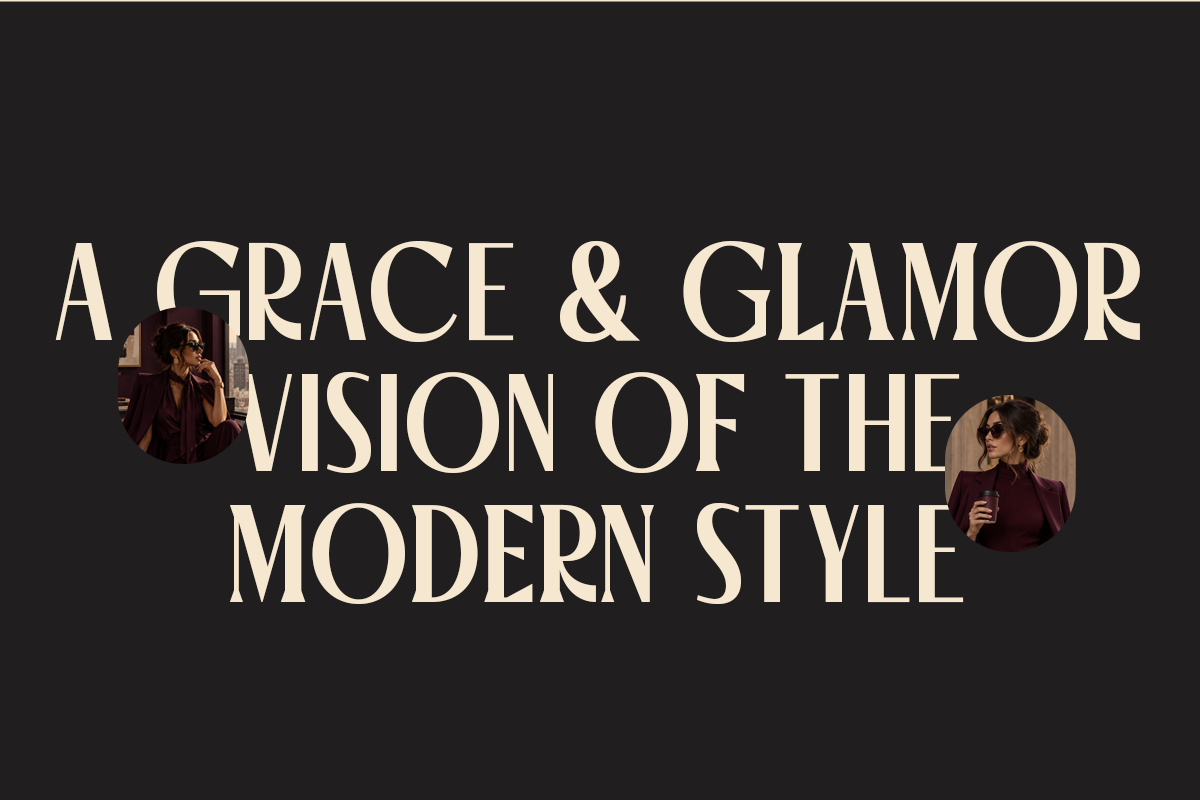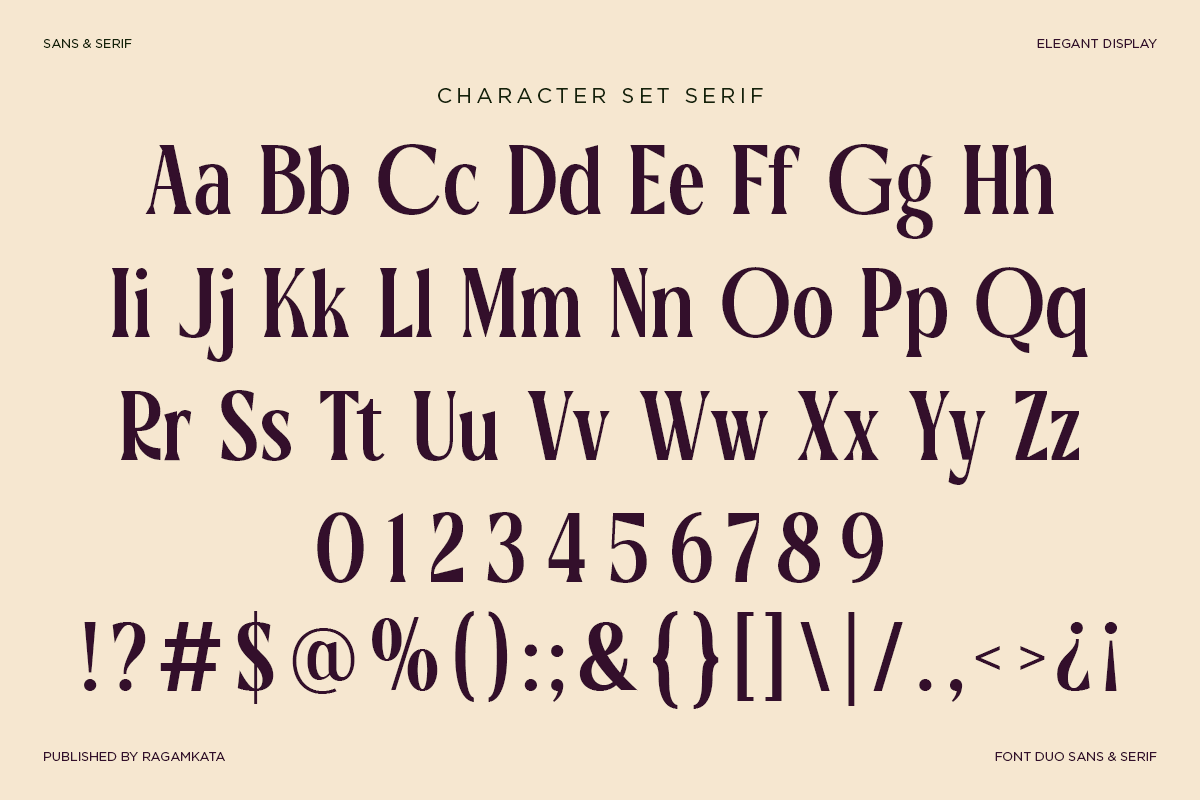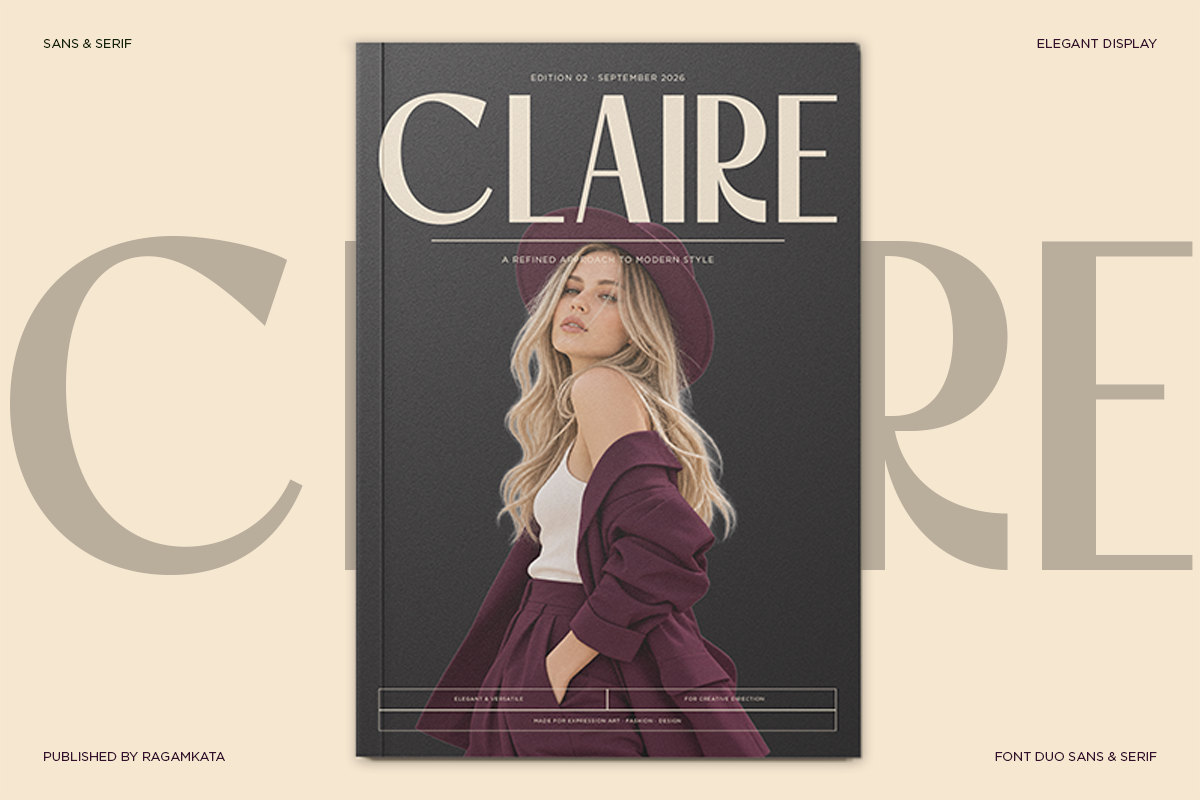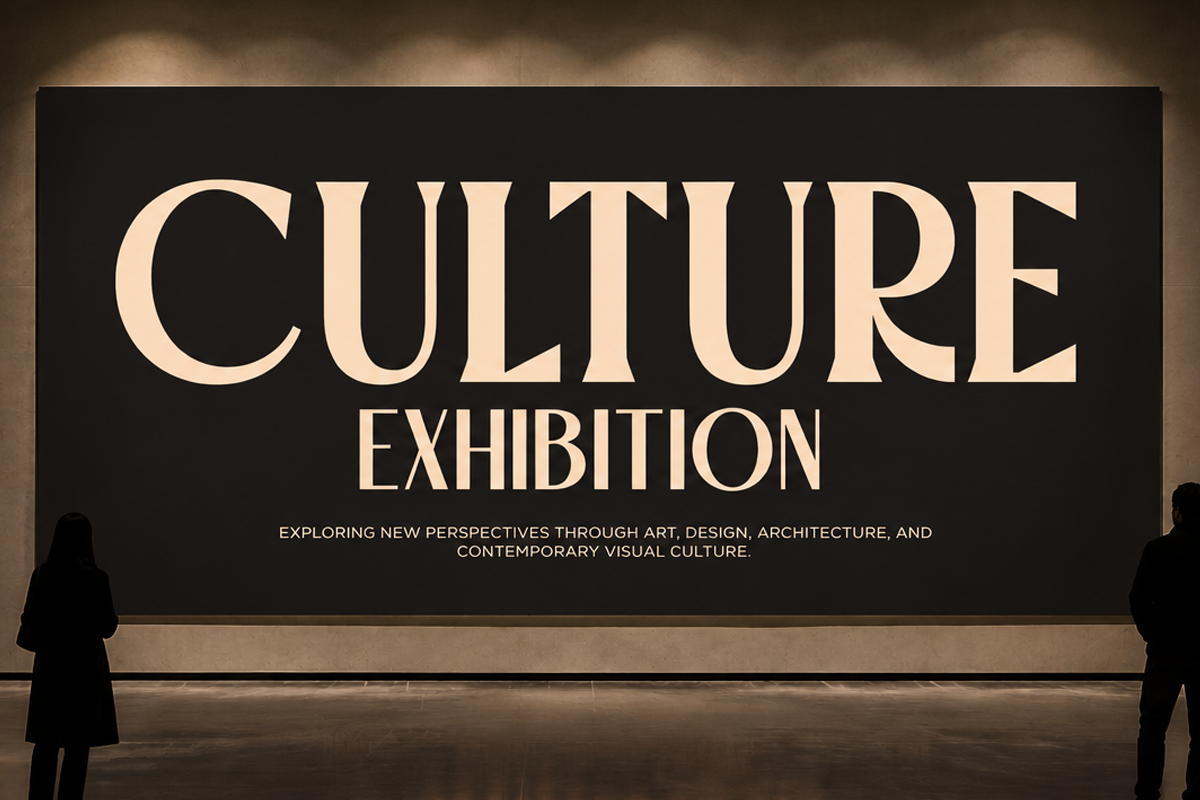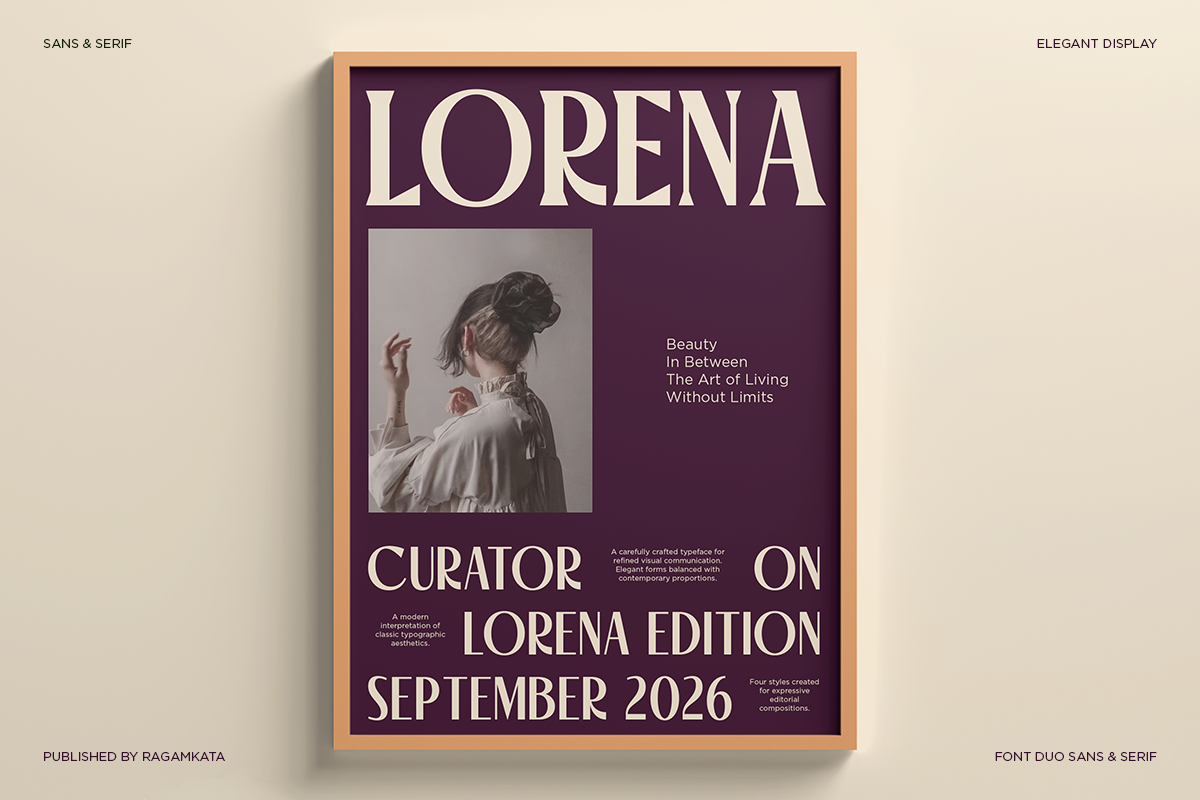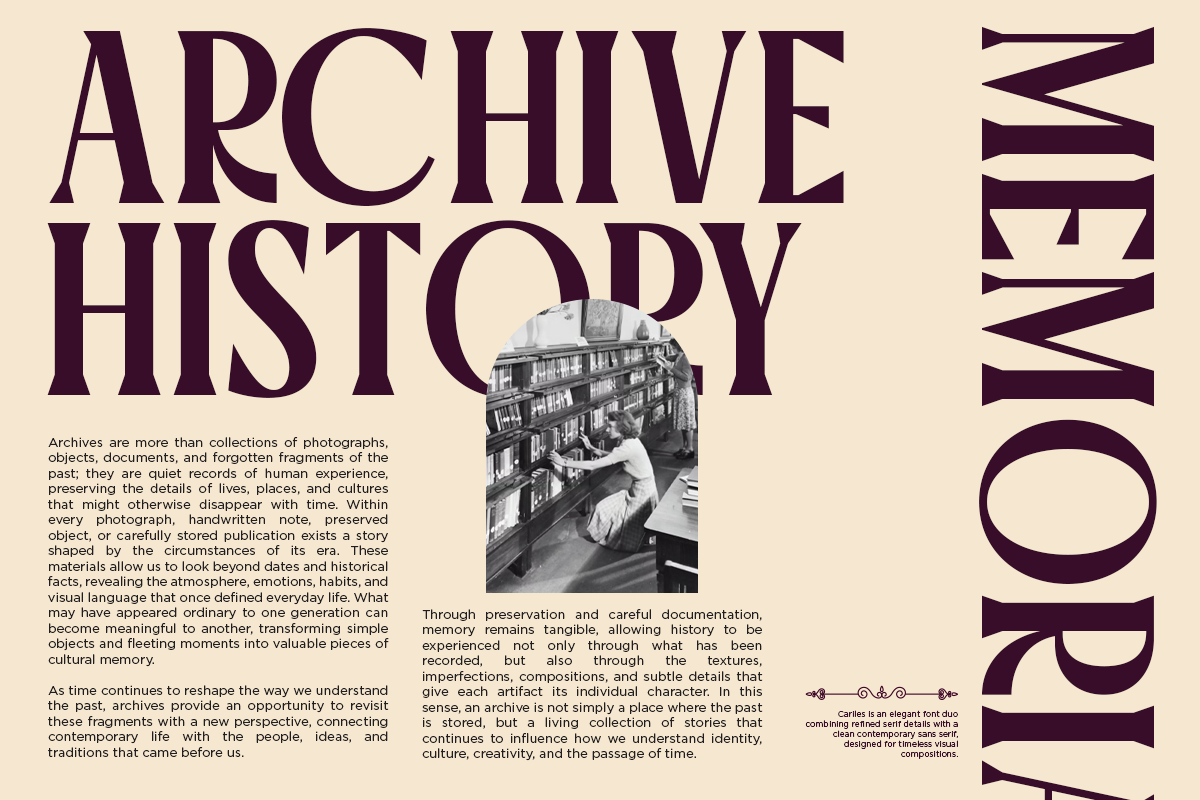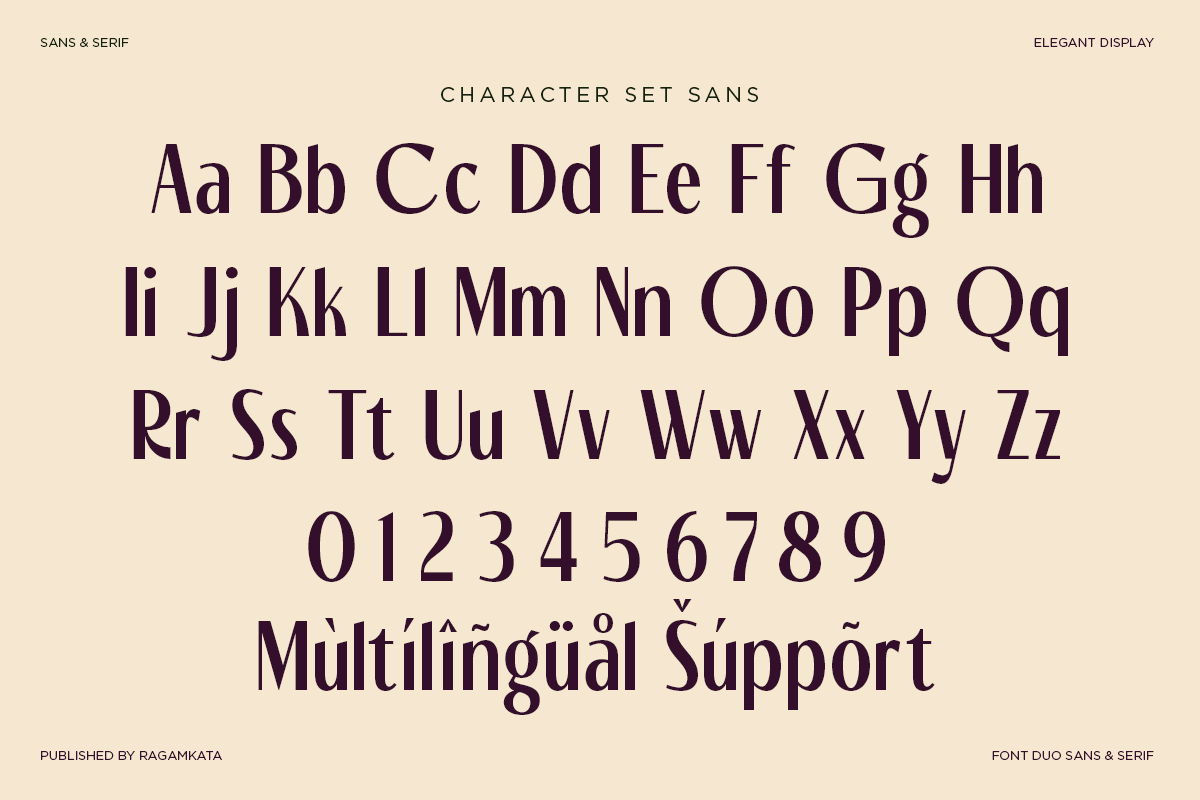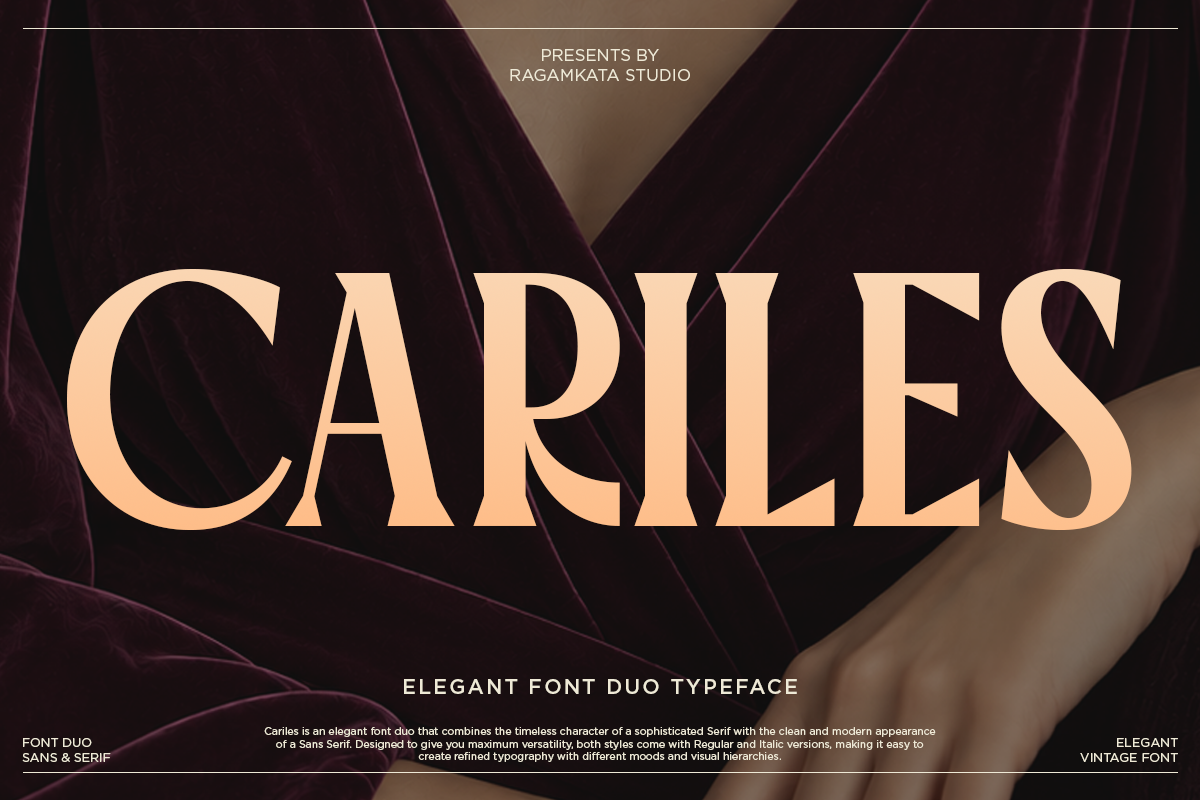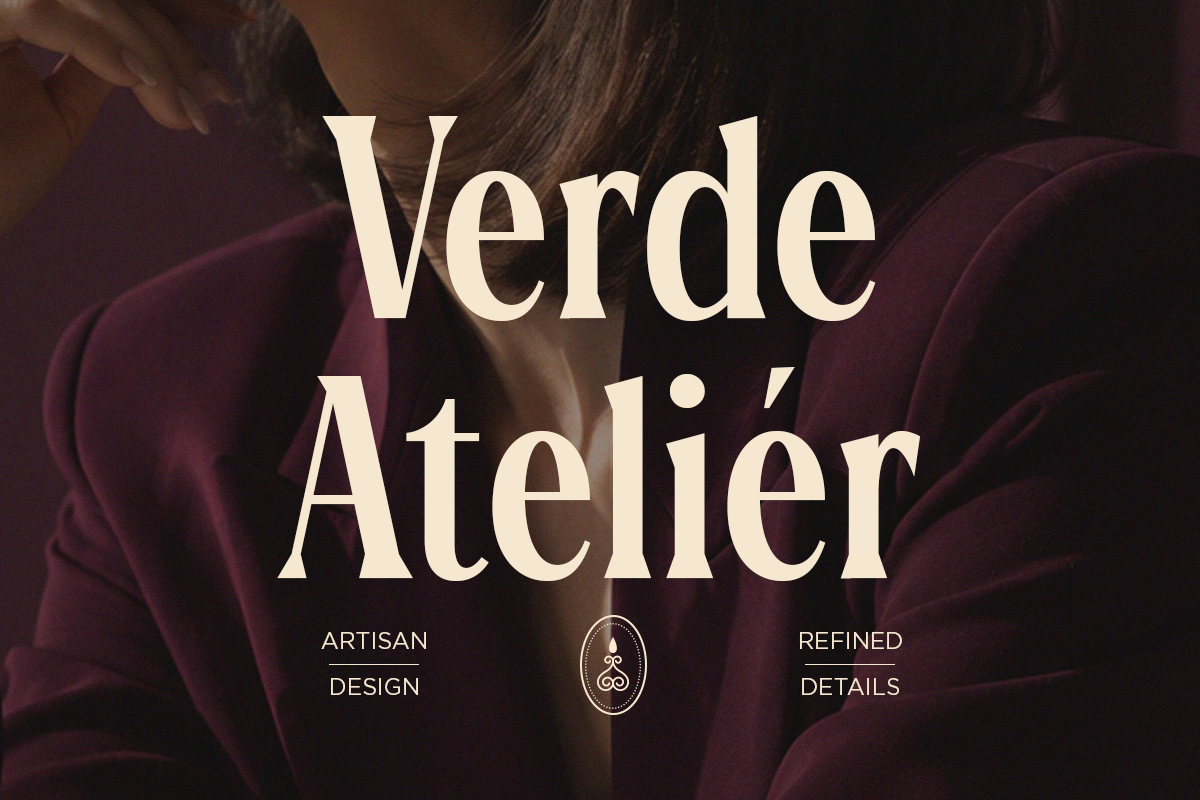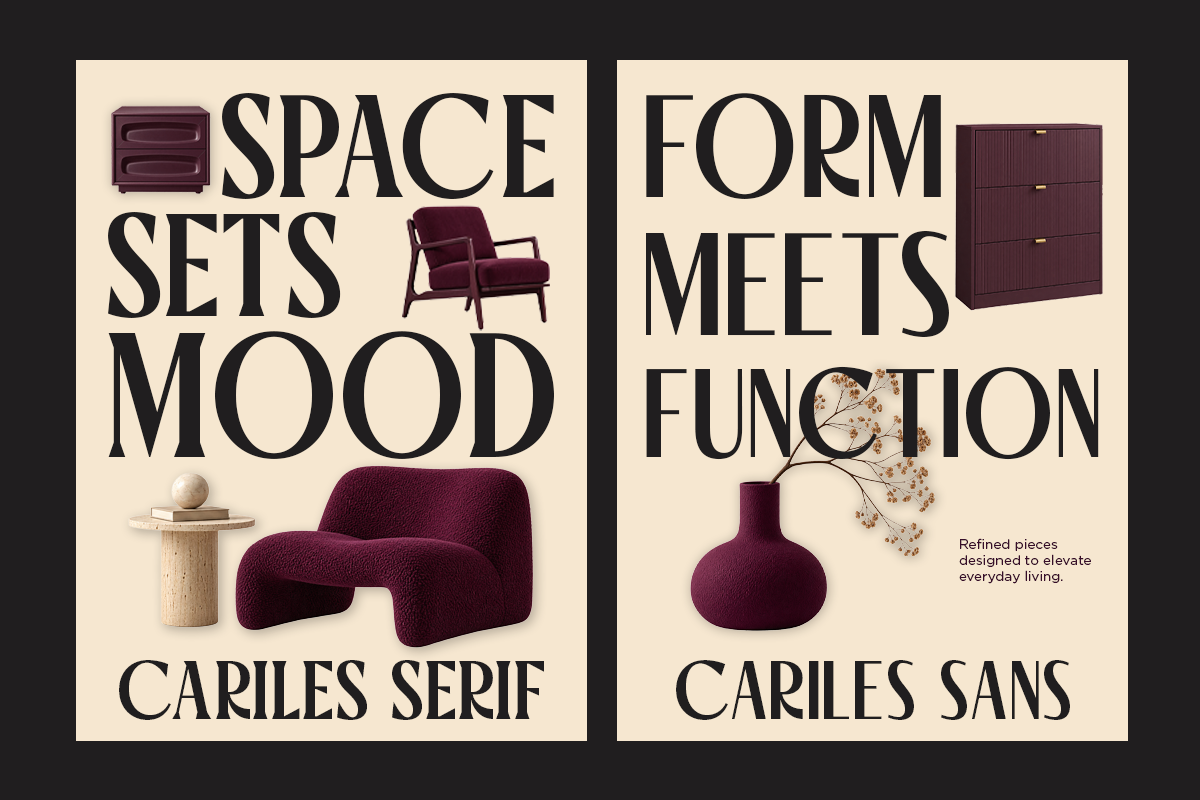
Cariles - Duo Font Sans and Serif
Cariles is an elegant editorial serif font designed to bring sophistication, character, and refined typography to modern creative projects. With its high-contrast strokes, graceful proportions, and distinctive serif details, Cariles creates a sophisticated visual presence for both classic and contemporary designs.
Perfect for fashion branding, editorial layouts, magazine covers, luxury logos, cultural publications, beauty campaigns, boutique identities, posters, packaging, and premium visual identities. Its expressive letterforms are especially effective for large headlines, titles, display typography, and sophisticated brand statements.
From fashion magazines and art exhibitions to boutique branding and modern editorial campaigns, Cariles adds an artistic and polished character to every composition. Use it for branding, lookbooks, magazines, posters, packaging, social media graphics, invitations, and other projects that require elegant and memorable typography.
Serif and Sans Serif Version
Regular and Italic
Number, Symbol, and Punctuation